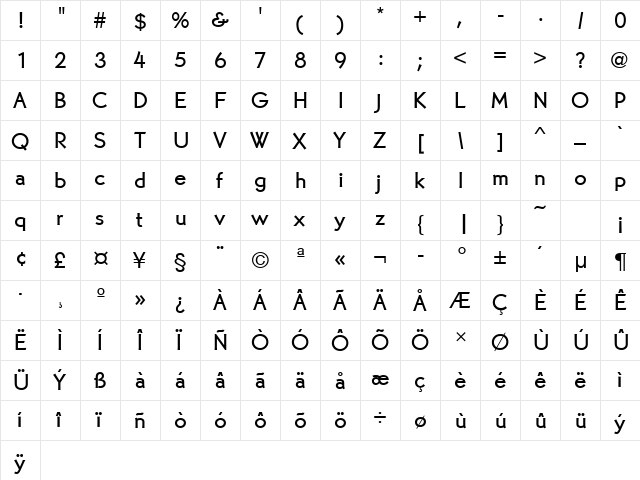
MartinGotURWTMed Regular
Design Context for MartinGotURWTMed Typeface
MartinGotURWTMed takes a measured approach to typography — its balanced proportions and neutral character make it a reliable workhorse for both digital and print work.